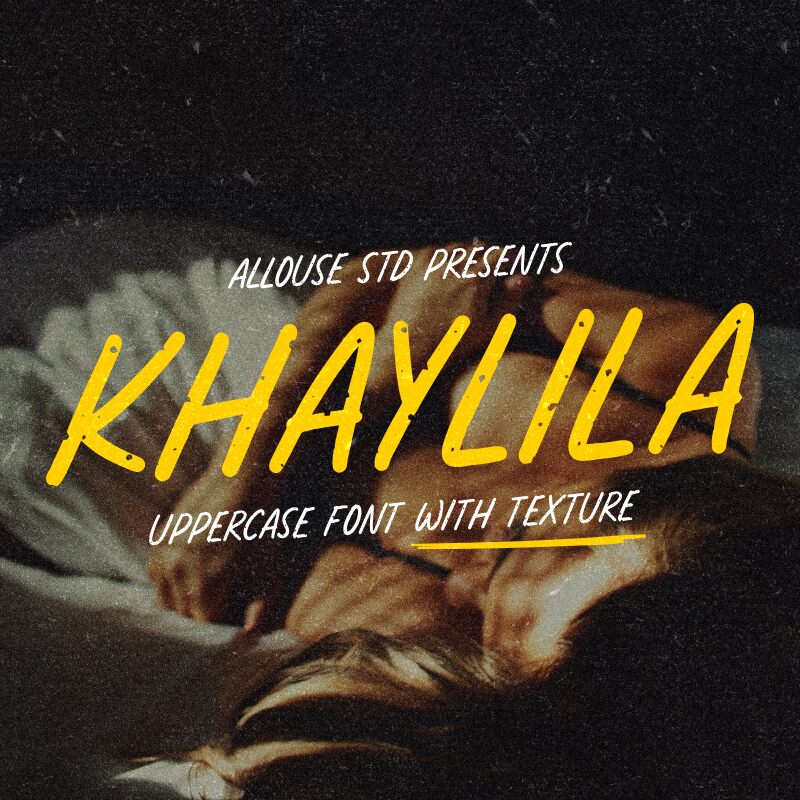
Khaylila font by Allouse Studio is a free script font with a raw, edgy, and urban aesthetic. The font has a grungy, textured style that makes it dynamic and expressive. It has an energetic, contemporary feel and informal handwriting style. Its raw visual and readable quality make it ideal for comprehension on high-read format uses.
Khaylila is exclusively for personal use, making it a wonderful choice for personal branding projects, logos, promotional materials, posters, mockups, websites, and experimental visuals. Social media reels, stories, and cover images can look perfect with the correct application of the typeface. Its raw and sleek vibes make it suitable for youthful branding.